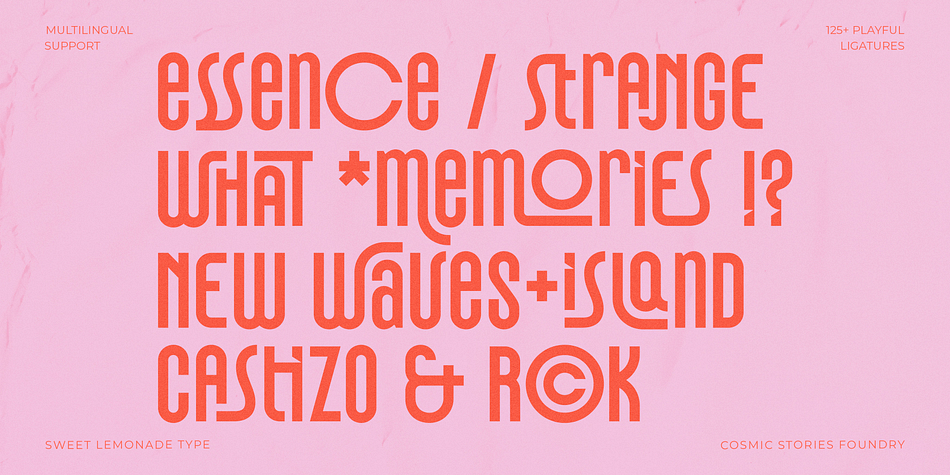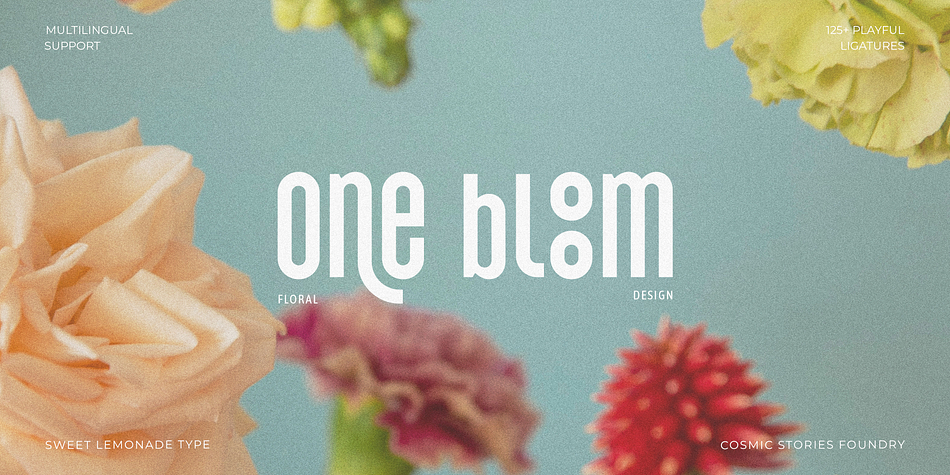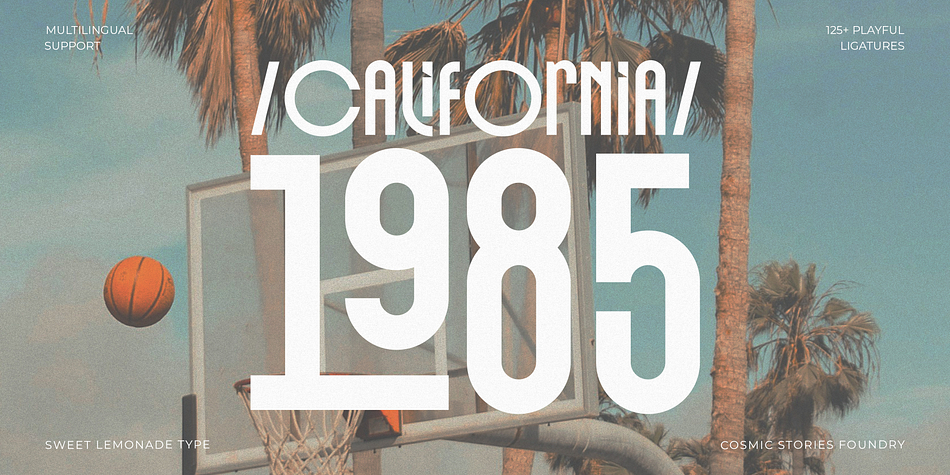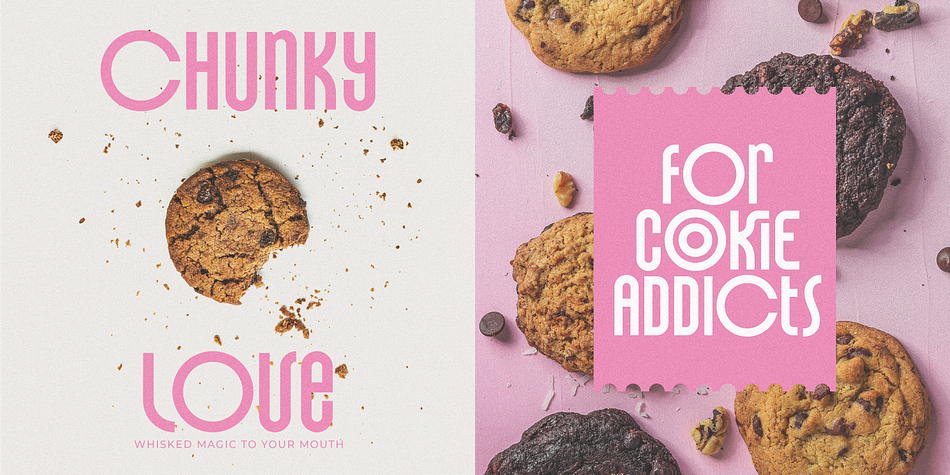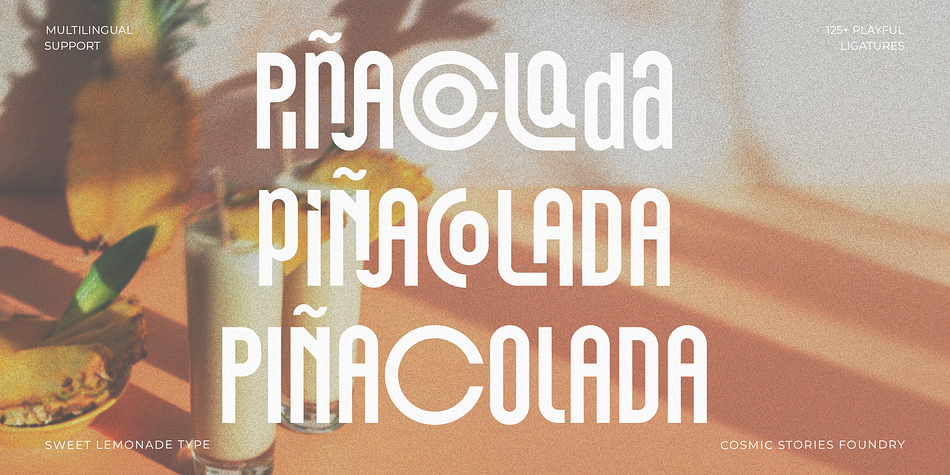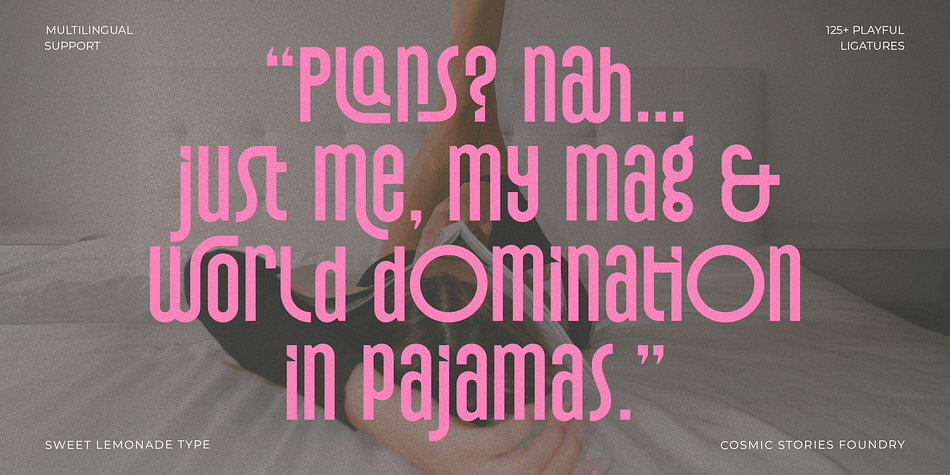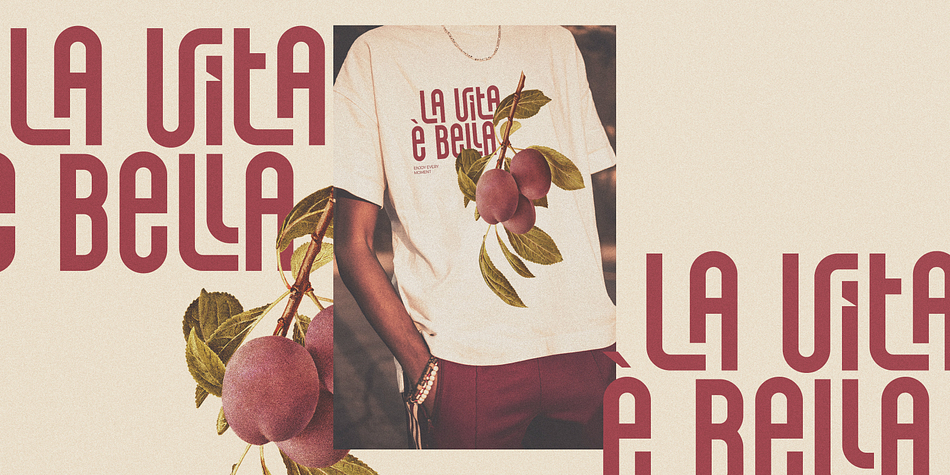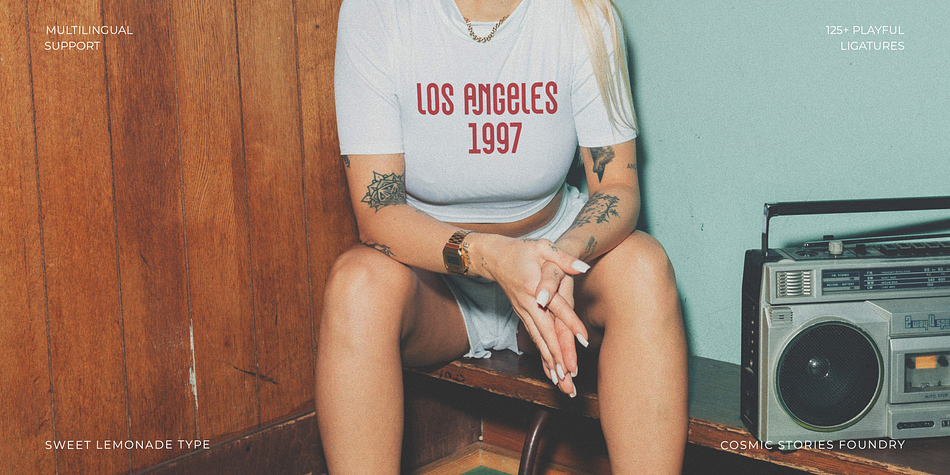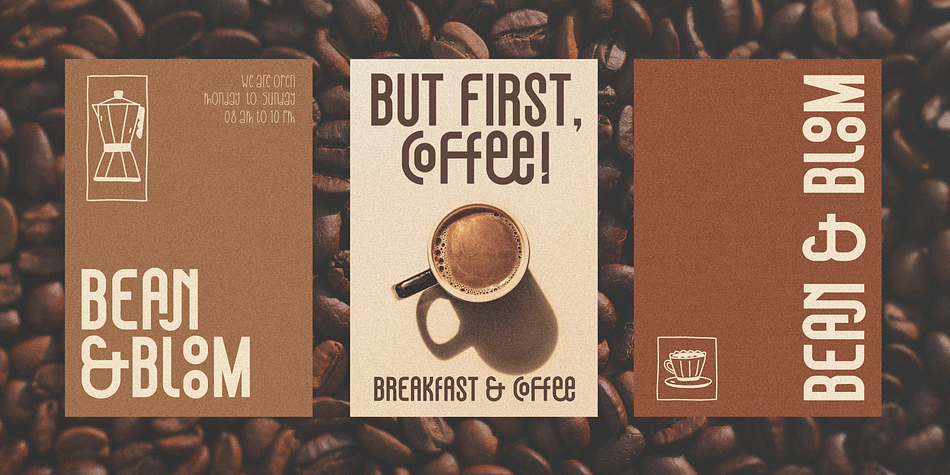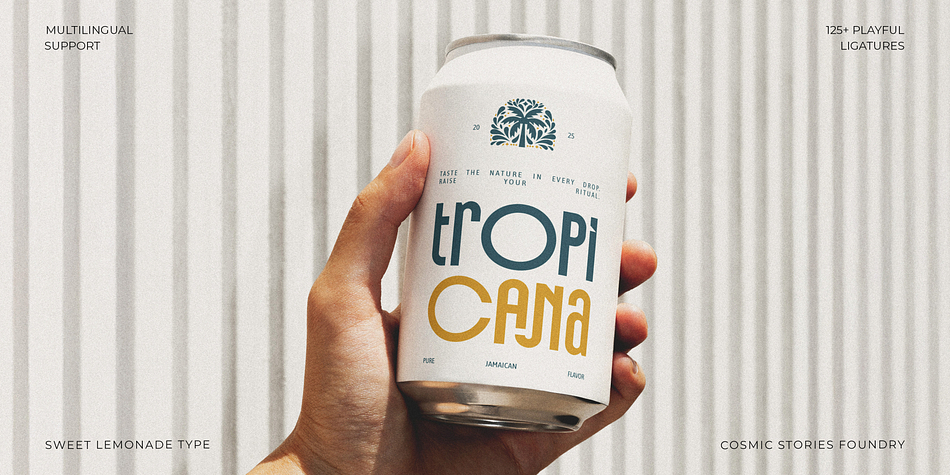
Sweet Lemonade
Sweet Lemonade is a display sans font family published by Cosmic Stories Foundry.
Sweet Lemonade Type – A Retro-Inspired but Modern Display Sans Font with 125+ Fun Ligatures
Say hello to Sweet Lemonade, a bold, tall and lively sans serif display font with a playful spirit and a subtle retro twist. Designed to inject energy and movement into your designs, this typeface features 125+ unique ligatures, giving you near-infinite creative possibilities to create eye-catching and expressive layouts.
With its vintage charm and modern versatility, Sweet Lemonade is ideal for logos, headlines, posters, and branding projects that need a fun, youthful, and nostalgic edge. It brings back the best of retro typography while keeping things fresh, clean, and contemporary.
- 125+ OpenType ligatures for dynamic, creative text
- Multilingual Support (Western, Central & Eastern European languages)
- Retro-inspired shapes with a modern display feel
- Perfect for logos, packaging, editorial layouts, and social media
Whether you’re building a brand identity, launching a product, or designing for digital content, Sweet Lemonade Type delivers character, flow, and vintage flair in every letter.